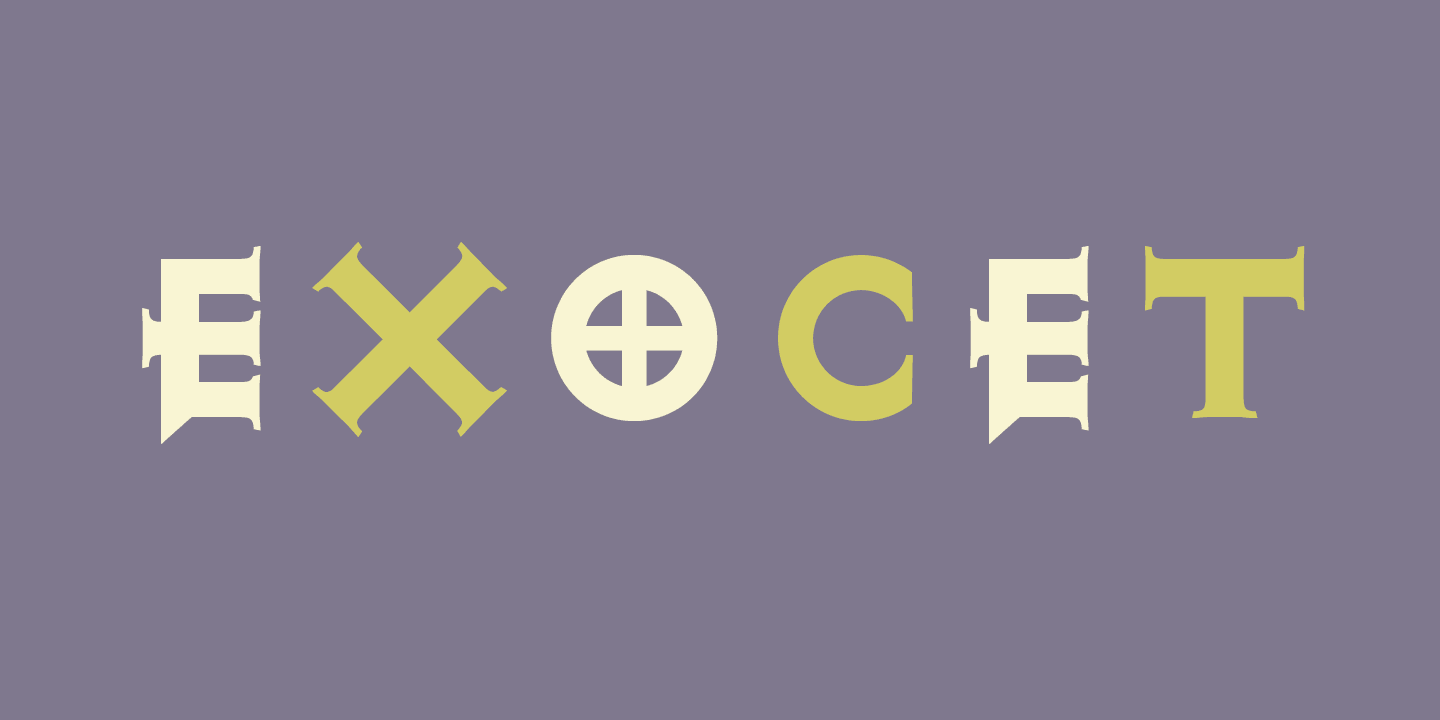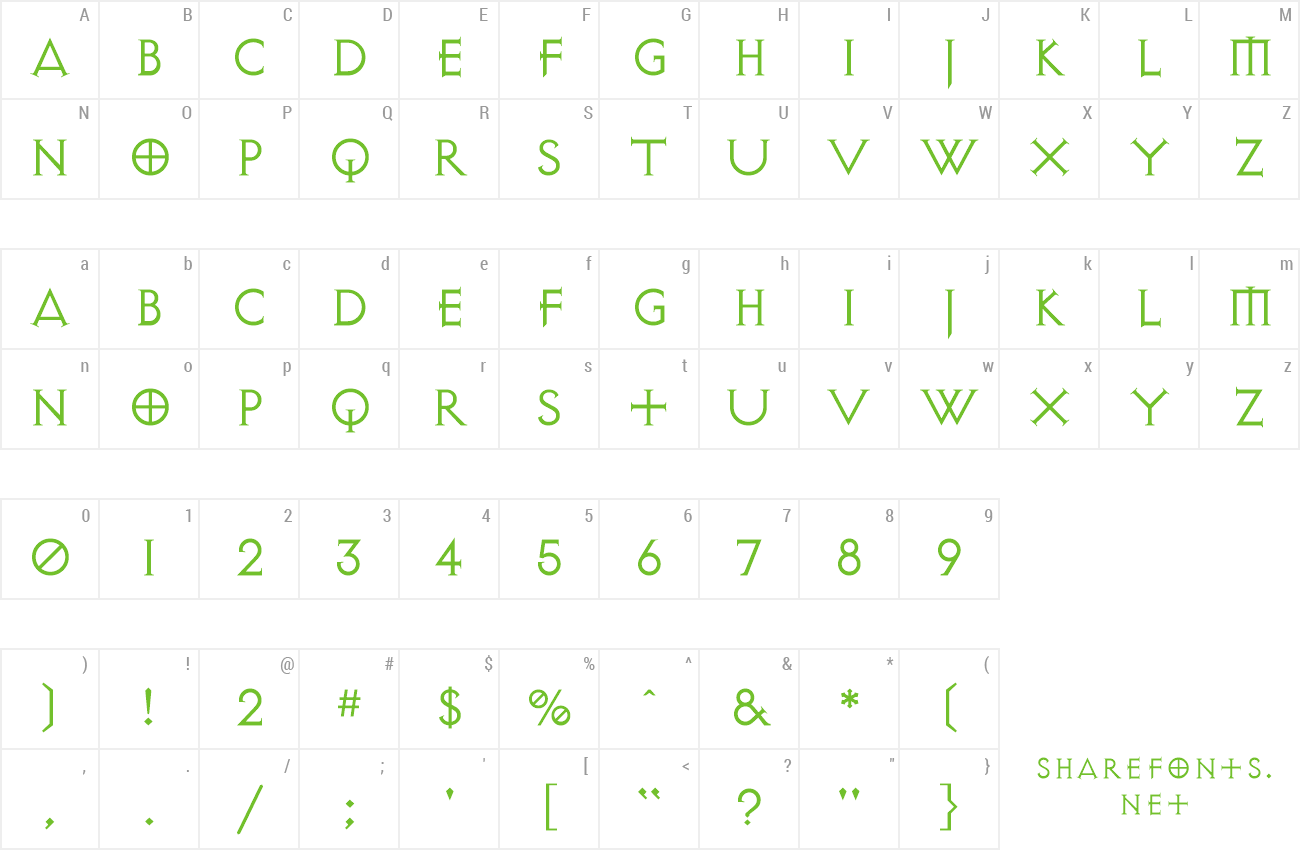
Download Exocet Font - A decorative typeface with 3 styles, available from. Web explore exocet designed by jonathan barnbrook at adobe fonts.
Web explore exocet designed by jonathan barnbrook at adobe fonts. A decorative typeface with 3 styles, available from.
A decorative typeface with 3 styles, available from. Web explore exocet designed by jonathan barnbrook at adobe fonts.
A Decorative Typeface With 3 Styles, Available From.
Web explore exocet designed by jonathan barnbrook at adobe fonts.